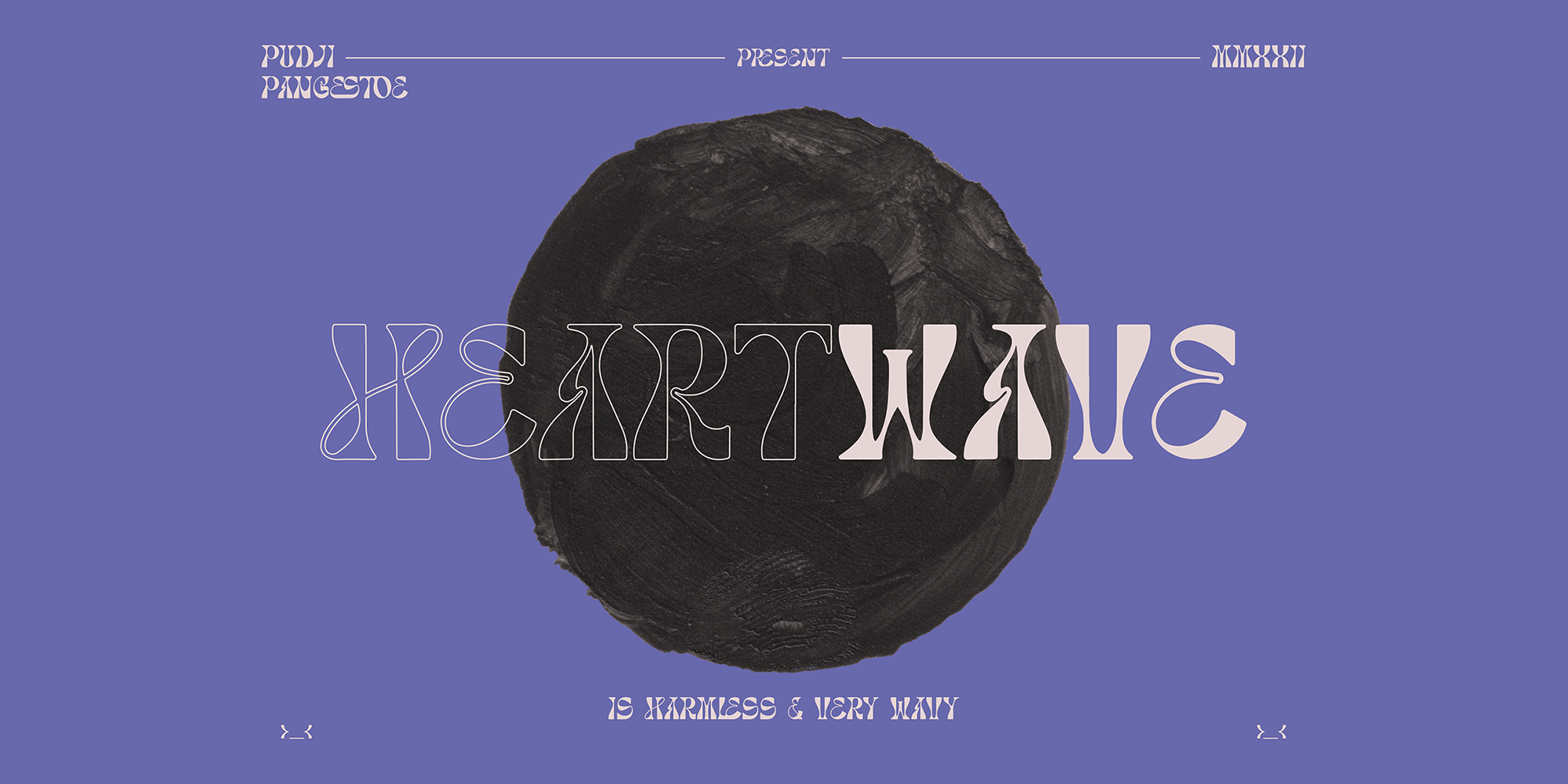
Heartwave Font is perfect for medical clinic branding, health and wellness centers, cardiology practice signage, fitness app interfaces, healthcare marketing materials, medical device packaging, hospital wayfinding systems, and wellness lifestyle promotions.
Heartwave Font is exciting because it beautifully merges the rhythmic pulse of life with contemporary design sophistication through its flowing character design that embodies the vital energy of health and the compassionate care of medical excellence. Its organic styling and wellness appeal make it the perfect choice for brands that want to communicate healing, vitality, and the profound connection between health and human flourishing.
Heartwave Font family includes multiple health-inspired variations: Heartwave Light, Heartwave Regular, Heartwave Medium, Heartwave Bold, Heartwave Pulse, and Heartwave Monitor, along with medical symbols and wellness decorative elements, providing designers with comprehensive tools for creating authentic healthcare and wellness-themed brand experiences.
When exploring healthcare typography solutions, Heartwave Font Free Download emerges as the definitive choice for designers working on medical and wellness projects that require genuine health sophistication and caring appeal. This remarkable typeface embodies the essence of medical compassion while offering the technical precision that contemporary healthcare organizations and wellness brands require. The font's vital character and health authenticity create immediate connections with audiences who prioritize health and wellness in their lifestyle choices.
Healthcare professionals consistently choose Heartwave Font for projects requiring authentic medical sophistication and powerful wellness appeal. Its expertly crafted letterforms feature health-inspired influences that work exceptionally well in both large-scale hospital signage and intimate wellness clinic materials. The font's ability to convey medical expertise and caring compassion while maintaining strong brand recognition makes it invaluable for comprehensive identity systems in the healthcare, wellness, and medical technology sectors.
Whether you're developing medical practice identities, creating wellness brand marketing materials, or designing healthcare technology interfaces, Heartwave Font delivers the authentic health character and caring appeal that resonates with audiences who value medical excellence and wellness innovation. Its health significance and compassionate design ensure your projects communicate professional medical expertise while maintaining contemporary standards that attract modern patients and wellness-conscious consumers.